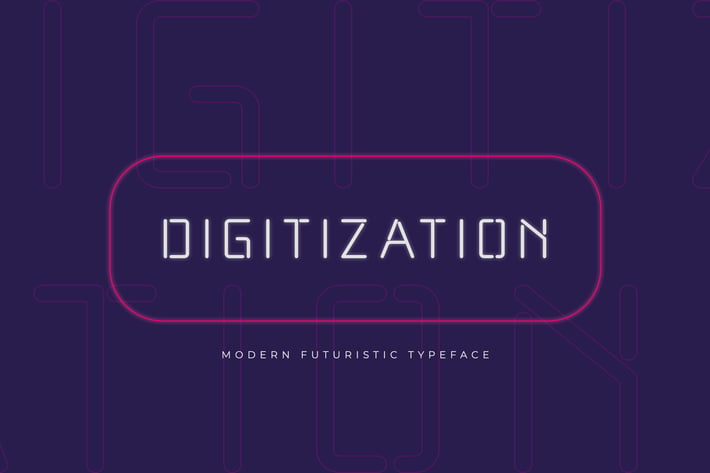
Digitization - A Modern Futuristic Typeface
Digitization is a cutting-edge and sleek futuristic typeface designed to bring a sense of innovation and technology to your design projects. With its clean lines and geometric precision, Digitization is perfect for tech startups, digital interfaces, sci-fi themes, and forward-thinking branding. This font merges minimalist aesthetics with a high-tech vibe, ensuring your designs convey a modern and visionary outlook.
Crafted with meticulous detail, Digitization features sharp and dynamic characters that offer excellent readability and visual impact. Its bold design makes it ideal for headlines and display text, providing a futuristic and memorable presence. The font’s versatility allows it to adapt seamlessly to various design contexts, from digital platforms to printed materials, making it an indispensable asset for any forward-looking designer.
Embrace the future of typography with Digitization, a font that embodies innovation and sophistication. Its unique style and adaptability make it an essential addition to any designer’s toolkit. Propel your projects forward with Digitization and experience the power of modern futuristic typography.
Digitization is a cutting-edge and sleek futuristic typeface designed to bring a sense of innovation and technology to your design projects. With its clean lines and geometric precision, Digitization is perfect for tech startups, digital interfaces, sci-fi themes, and forward-thinking branding. This font merges minimalist aesthetics with a high-tech vibe, ensuring your designs convey a modern and visionary outlook.
Crafted with meticulous detail, Digitization features sharp and dynamic characters that offer excellent readability and visual impact. Its bold design makes it ideal for headlines and display text, providing a futuristic and memorable presence. The font’s versatility allows it to adapt seamlessly to various design contexts, from digital platforms to printed materials, making it an indispensable asset for any forward-looking designer.
Embrace the future of typography with Digitization, a font that embodies innovation and sophistication. Its unique style and adaptability make it an essential addition to any designer’s toolkit. Propel your projects forward with Digitization and experience the power of modern futuristic typography.